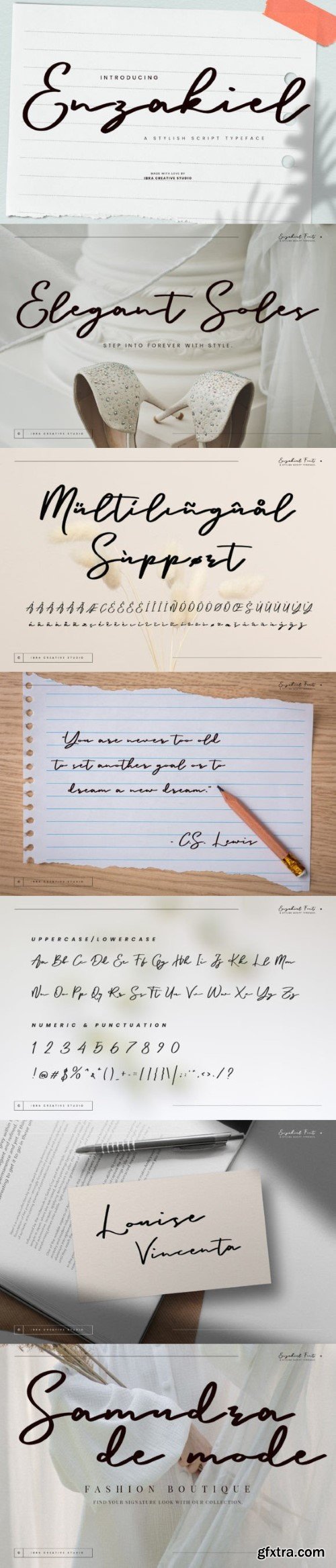
恩扎基尔字体
Enzakiel embodies sophistication and elegance with its stylish script typeface. Each letter flows effortlessly into the next, creating a seamless and graceful appearance. The curves are delicately crafted, exuding a sense of refinement and beauty. With its modern yet timeless design, Enzakiel adds a touch of class to any project, whether it’s wedding invitations, logos, or branding materials. The smooth lines and intricate details of this script typeface capture attention and convey a sense of luxury.